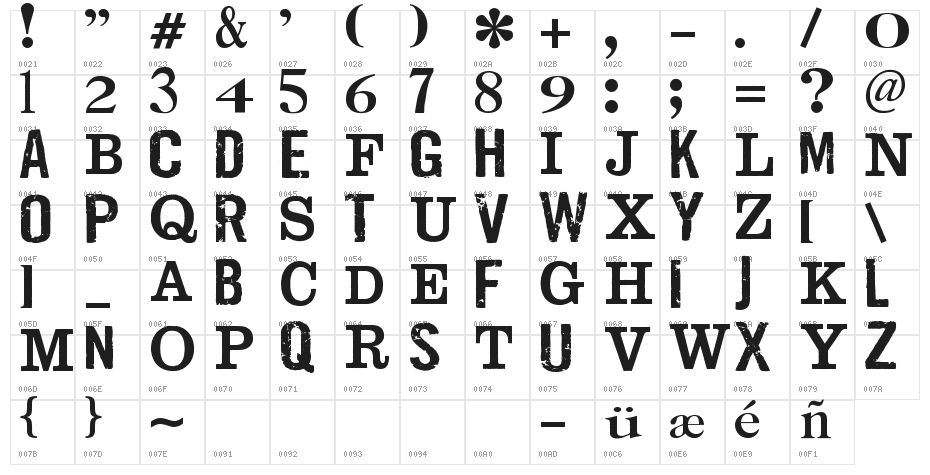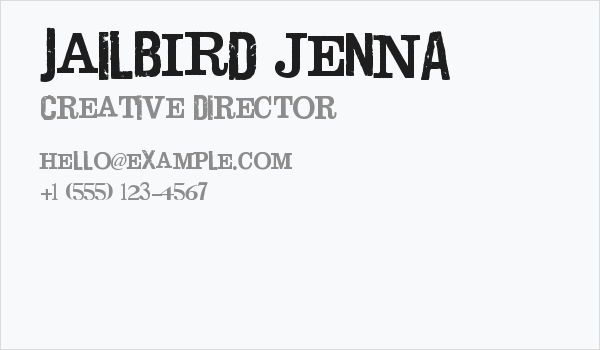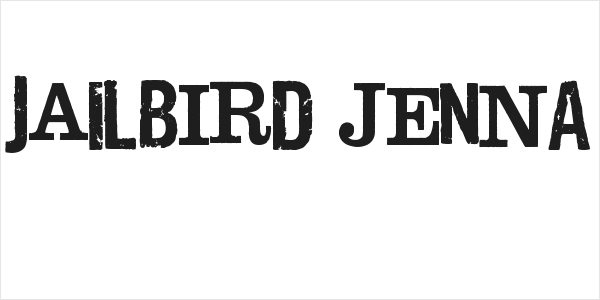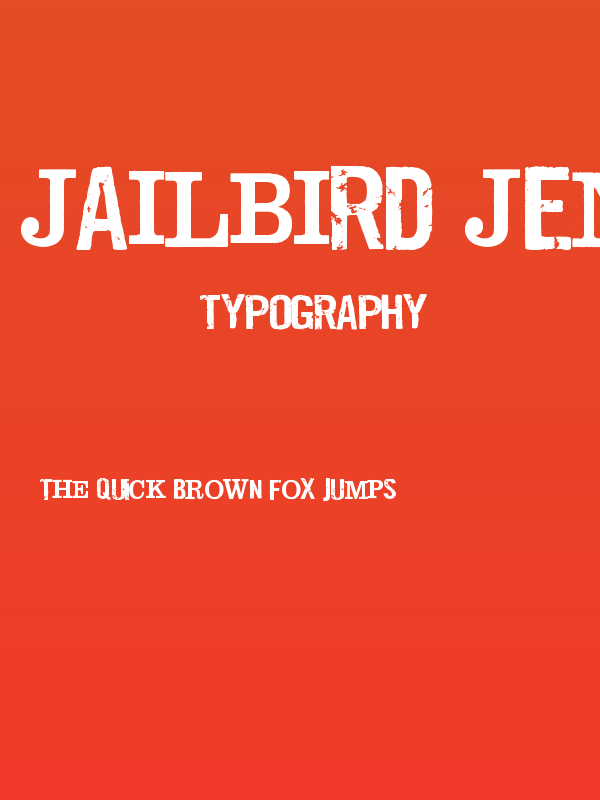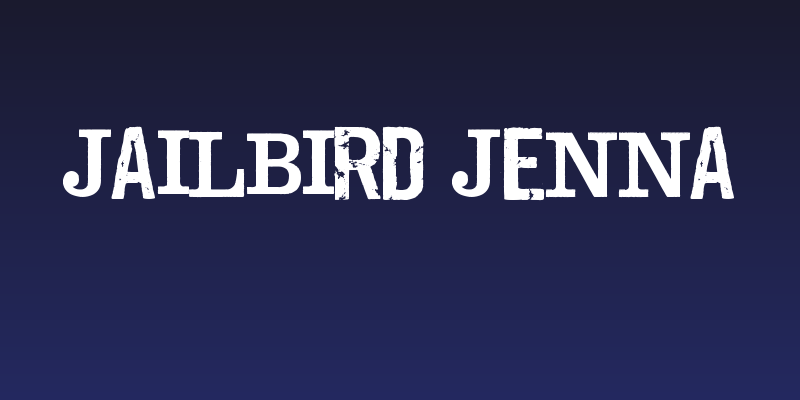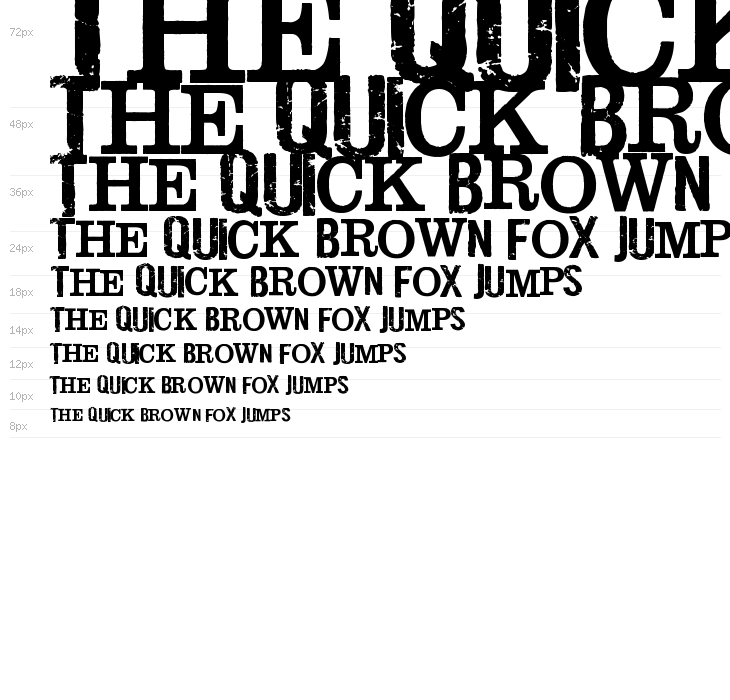
jailbIrD JenNA Font
jailbIrD JenNA Description
This font features a bold and distressed style, with a rugged texture that gives it a vintage and worn appearance. The uppercase letters are bold and impactful, with a slightly uneven texture that adds character and depth. The numbers and special characters maintain this distressed look, providing a cohesive aesthetic throughout. The font's design is reminiscent of old printing techniques, making it ideal for projects that require a retro or grunge feel. Its unique style is both eye-catching and versatile, suitable for a variety of creative applications.
| Proposed Projects | Ideal for posters, album covers, branding, and any project needing a vintage or grunge aesthetic. |